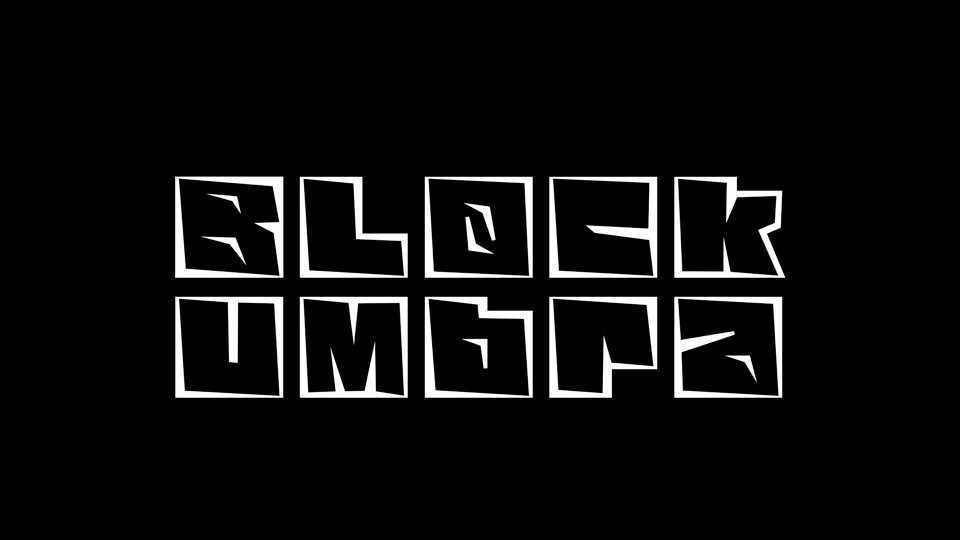
Download Block Umbra font, a block display typeface inspired by shadows. Block Umbra features contrasting modulation and sharp angles.
Designer: Sandev Abeykoon